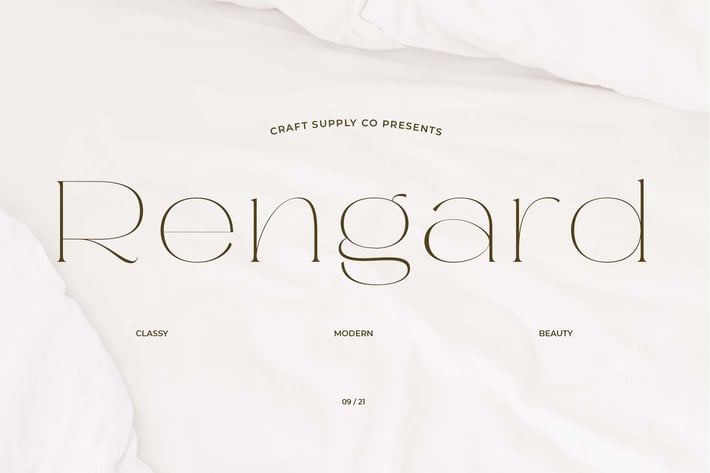
Rengard - Modern Serif Typeface
Introducing Rengard - Modern Serif Typeface.
Rengard - Modern Serif Typeface consisting of a low contrast serif fonts with a classy chic and beauty look.. It can be used to create almost all types of design projects like print materials. Just use your imagination and your project will become more alive and look great than ever with this typeface.
You want to make a greeting card or a package design, or even a brand identity, craft design, any DIY project, book title, wedding font, pop vintage design, retro design or any purpose to make your art / design project look pretty and trendy? Feel free to play with this fonts!
Accents (Multilingual characters) (AÀÁÂÃÄÅCÇDÐEÈÉÊËIÌÍÎÏNÑOØÒÓÔÕÖUÙÜÚÛWYÝŸỲŸÆŒßÞ)